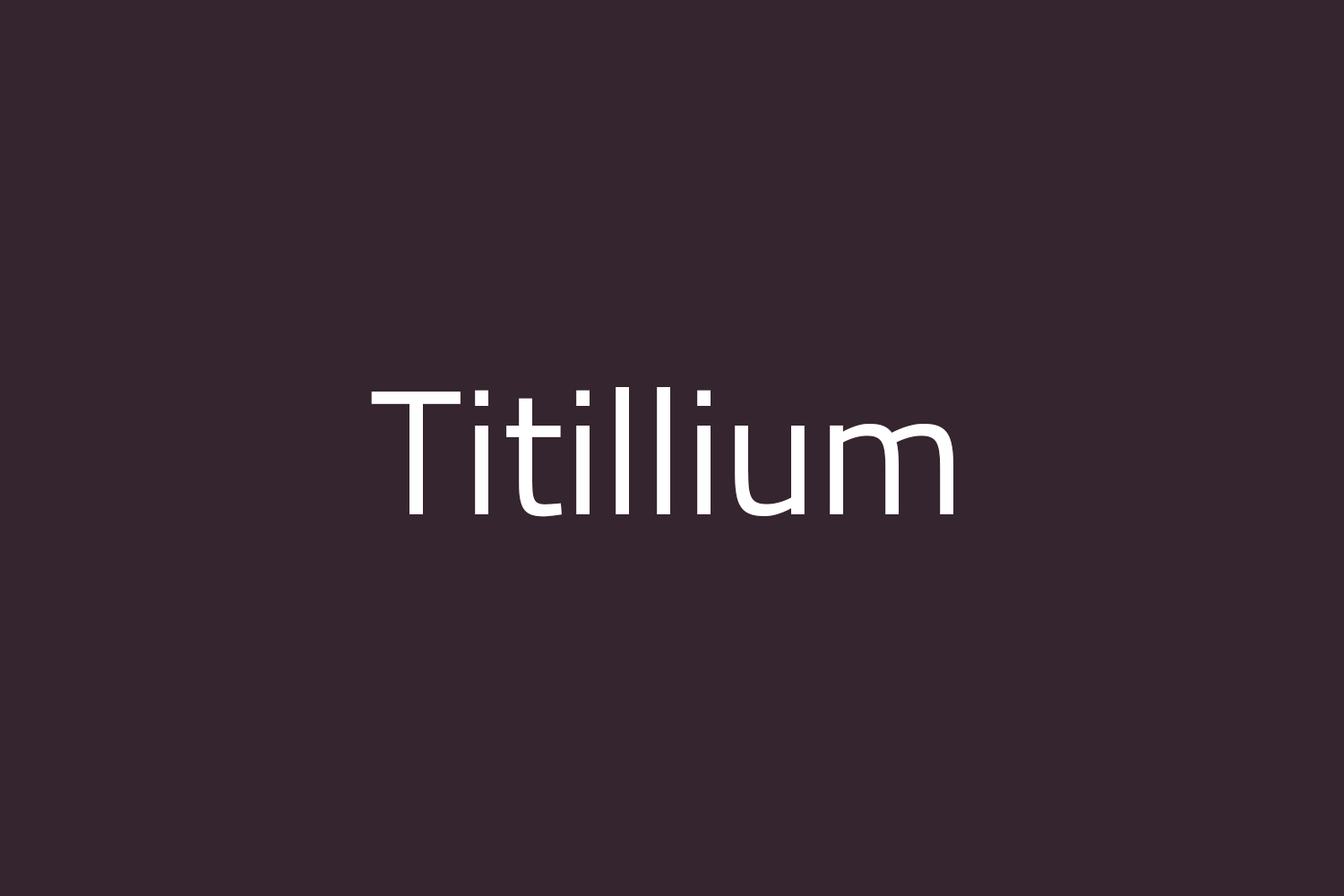
Titillium
Titillium Free Font Family is born inside the Accademia di Belle Arti di Urbino as a didactic project Course Type design of the Master of Visual Design Campi Visivi.
The aim of the project is the creation of a collective fonts released under OFL. Each academic year, a dozen students work on the project, developing it further and solving problems. Any type designer interested in the amendment or revision of Titillium is invited to co-operate with us, or develop their own variants of the typeface according to the terms specified in the Open Font license. We also ask all graphic designers who use Titillium in their projects to email us some examples of the typeface family in use, in order to prepare a case histories database.
Three years after the birth of Titillium, the project is still evolving, and even we don’t know what it will become in the future.